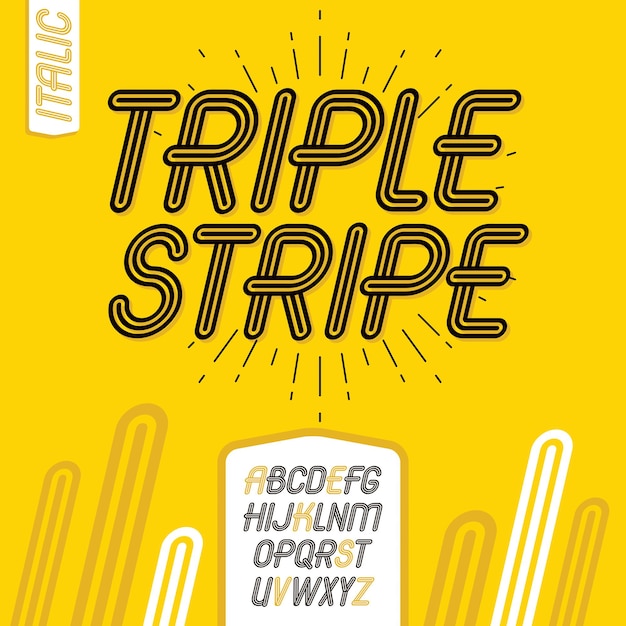
Vector trendy retro uppercase alphabet letters collection. Disco type font, script from a to z can be used for logo creation. Created using triple stripy, parallel lines.